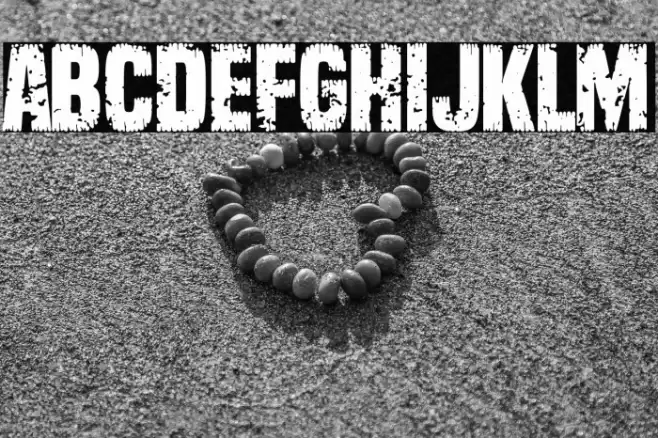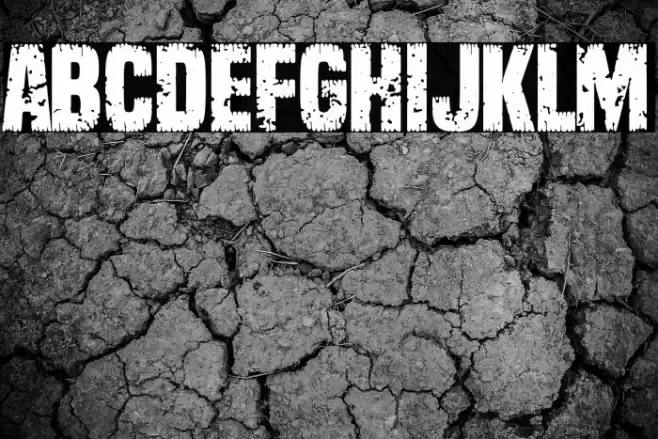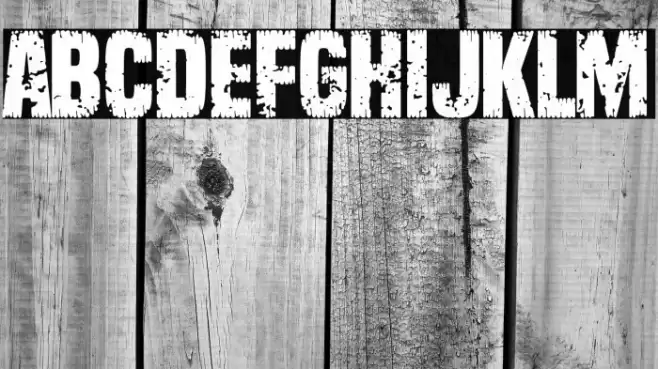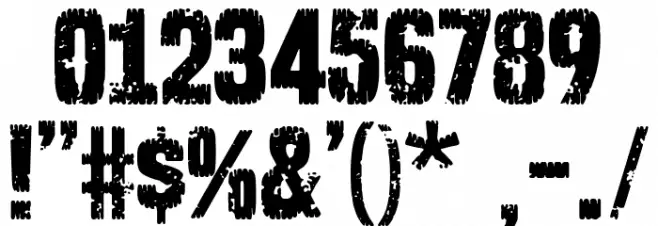
Impacto Final! Font
Impacto Final! Description
This font features a bold and distressed style, characterized by its rough, textured appearance that mimics the look of worn or eroded surfaces. The uppercase and lowercase letters, along with numbers and special characters, exhibit a consistent ruggedness, making it ideal for designs that require a gritty or industrial feel. The bold weight and irregular edges give it a strong visual impact, suitable for grabbing attention. Its unique style is perfect for projects that aim to convey strength, resilience, or a vintage aesthetic. The font's distressed look adds character and depth, making it a versatile choice for creative designs.
A bold, distressed font with a rugged, textured appearance from Uncategorized fonts.
- Font: Impacto Final!
- Proposed Projects: Ideal for posters, album covers, branding for edgy products, or any design needing a strong, gritty aesthetic.
- Overall Style: Vintage